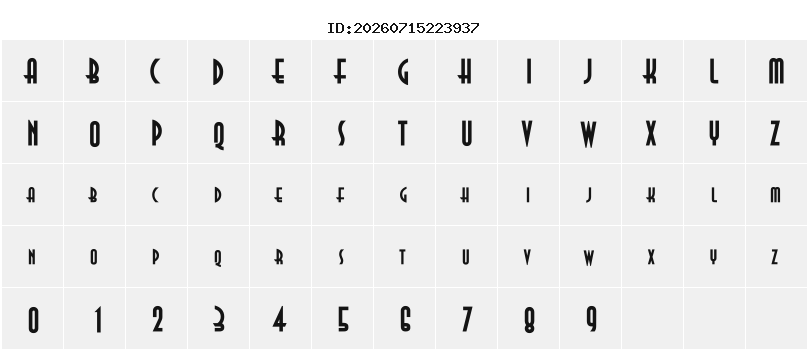
Asia-BO Preview
• Font Name: Asia-BO
• Full Font Name: Asia-BO
• PostScript Name: Asia-BO
About Asia-BO.ttf
Asia-BO.ttf is a modern, elegant sans-serif font designed for ultimate readability and visual harmony. Perfect for branding, headlines, web design, and print materials.